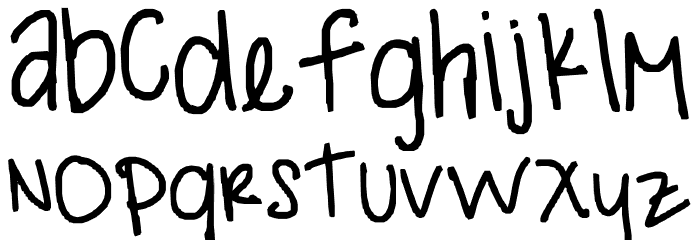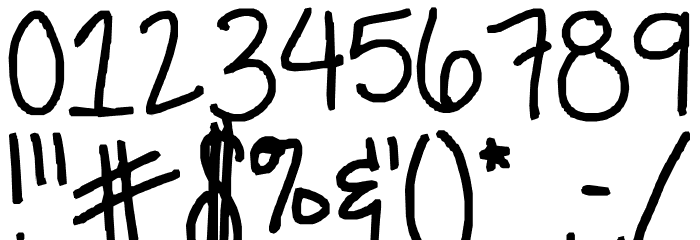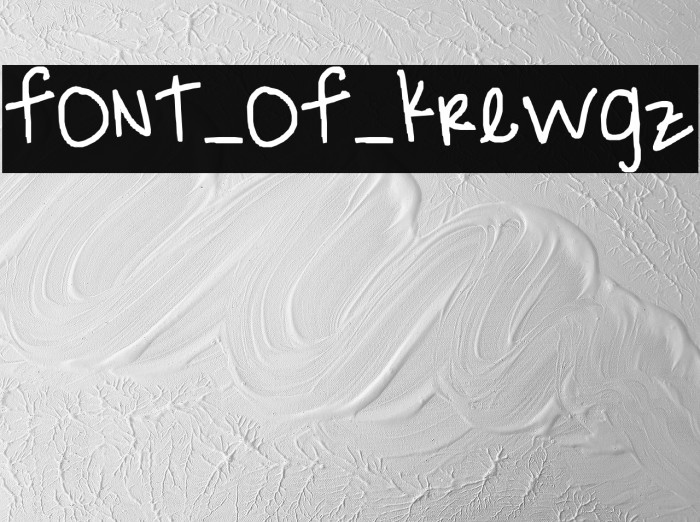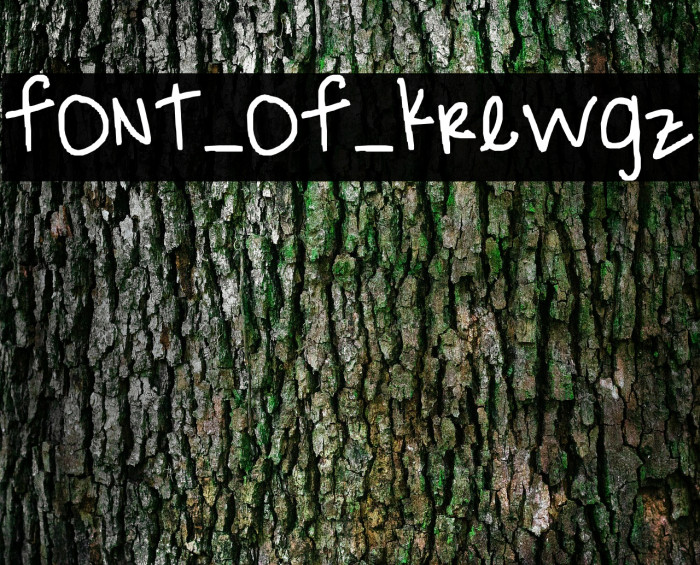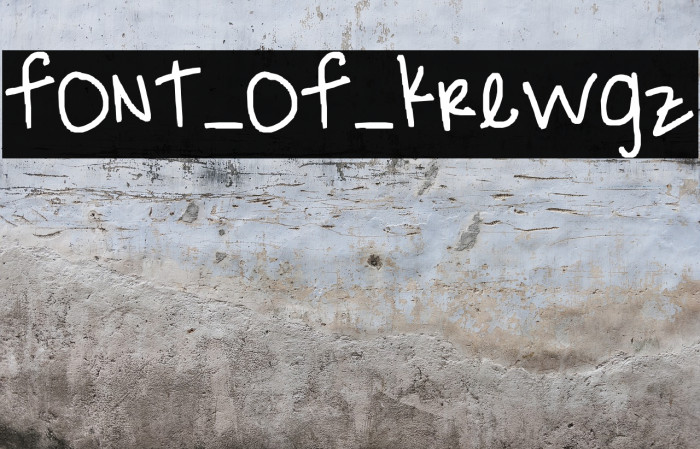
font_of_krewgz Font
This font exhibits a playful and informal handwritten style, characterized by its loose and casual strokes. The uppercase letters are bold and slightly irregular, giving a sense of spontaneity and creativity. The lowercase letters maintain a consistent flow, with some characters featuring unique loops and curves that add to the font's charm. Numbers are clear and legible, while the special characters retain the same whimsical quality. The overall appearance is dynamic and energetic, making it suitable for projects that require a personal touch or a fun, approachable aesthetic.
A playful, handwritten font with bold, irregular strokes and a casual style.
- Proposed Projects: Ideal for greeting cards, children's books, playful branding, and informal invitations.
- Overall Style: Casual, Playful
- Use Case: Headlines, Logos, Informal Text